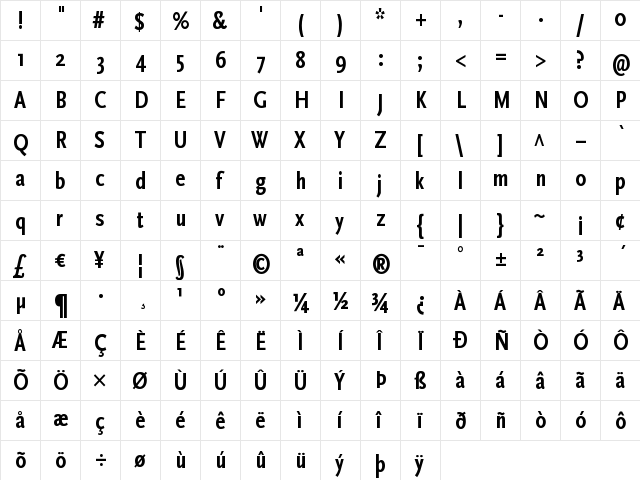
ScalaSans Cond Bold
Design Context for ScalaSans Cond Typeface
ScalaSans Cond offers clean, dependable letterforms without strong stylistic allegiance, making it a practical choice for designers who need flexibility. Its bold stroke weight gives it real presence on the page. Its narrow stance lets it pack a punch even in space-constrained designs.